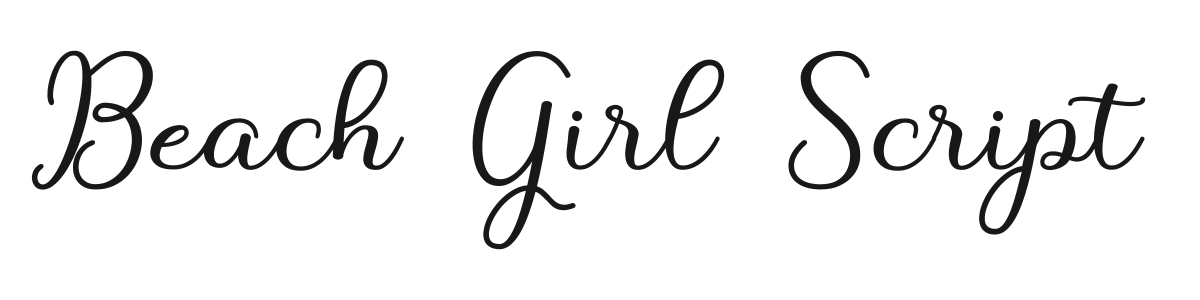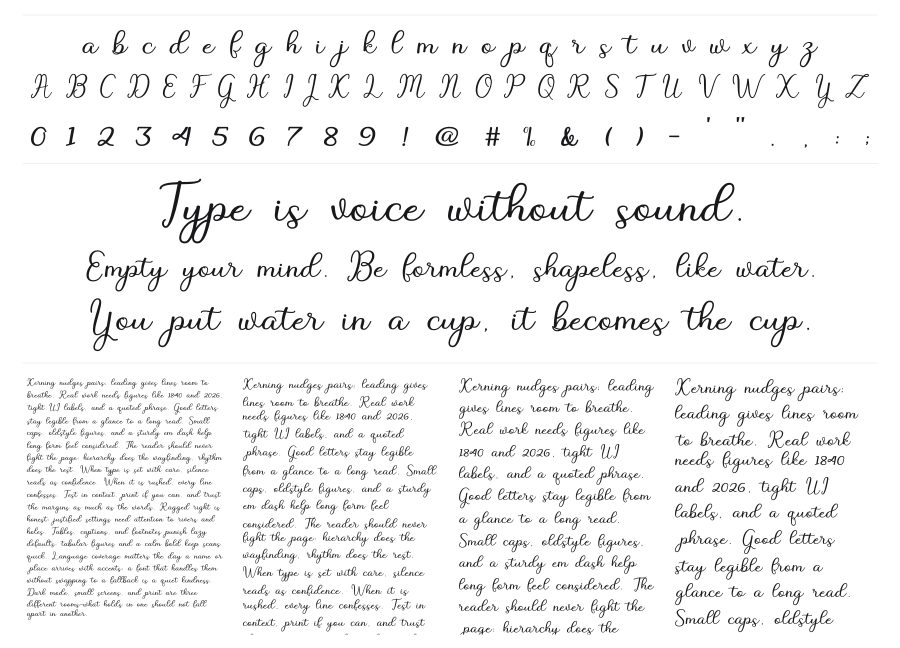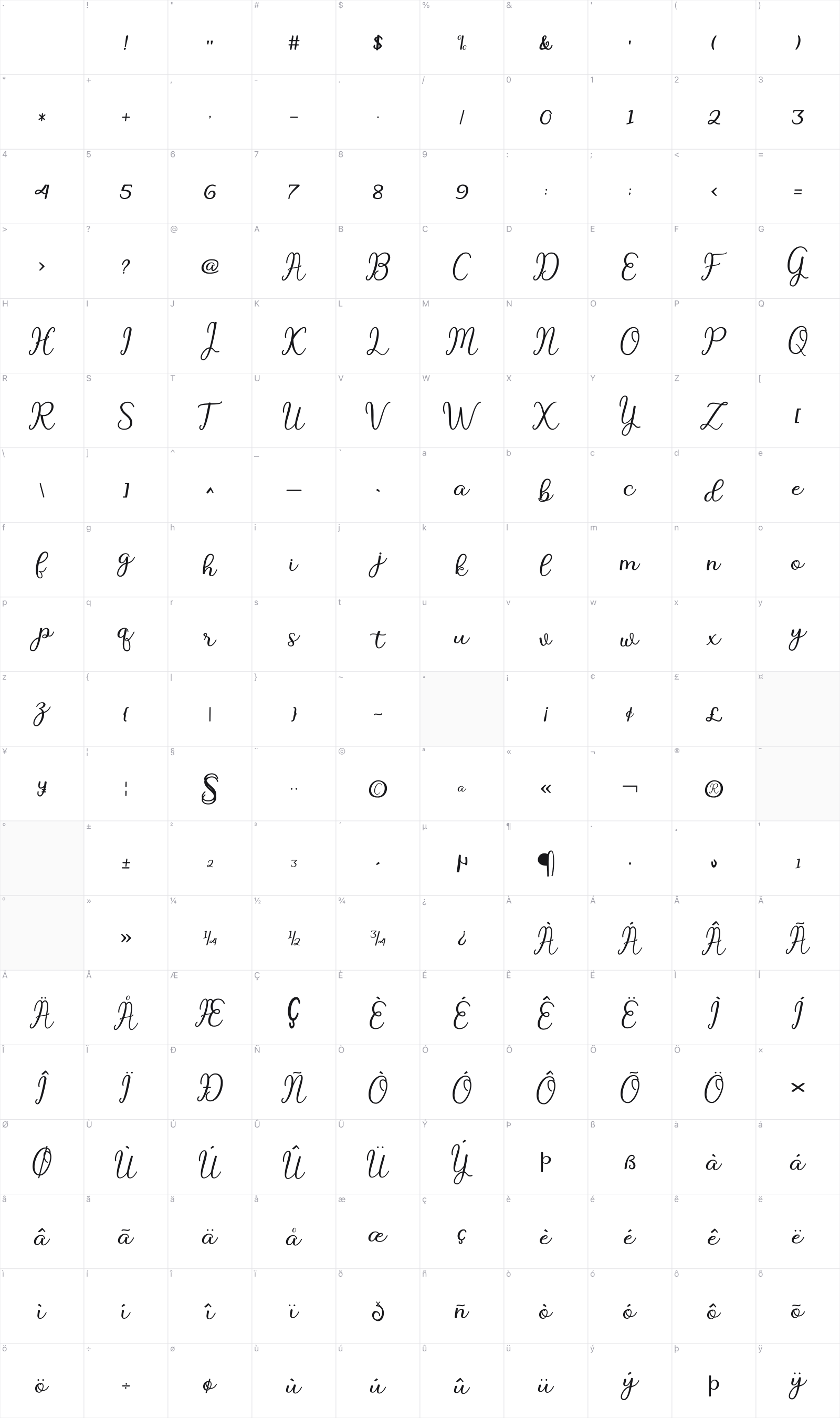
Beach Girl Script
Beach Girl Script is a flowing casual script with looping, connected strokes and a relaxed, bouncy rhythm. The generous swashes on ascenders and descenders give it an effortless handwritten quality that reads as warm and approachable. It works best at display sizes for branding, packaging, and lifestyle projects.